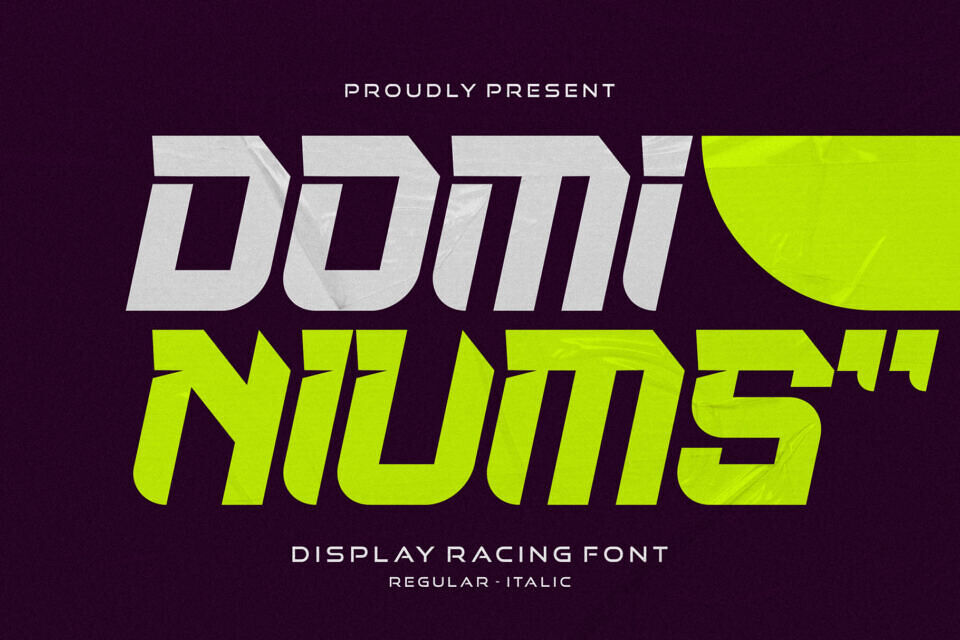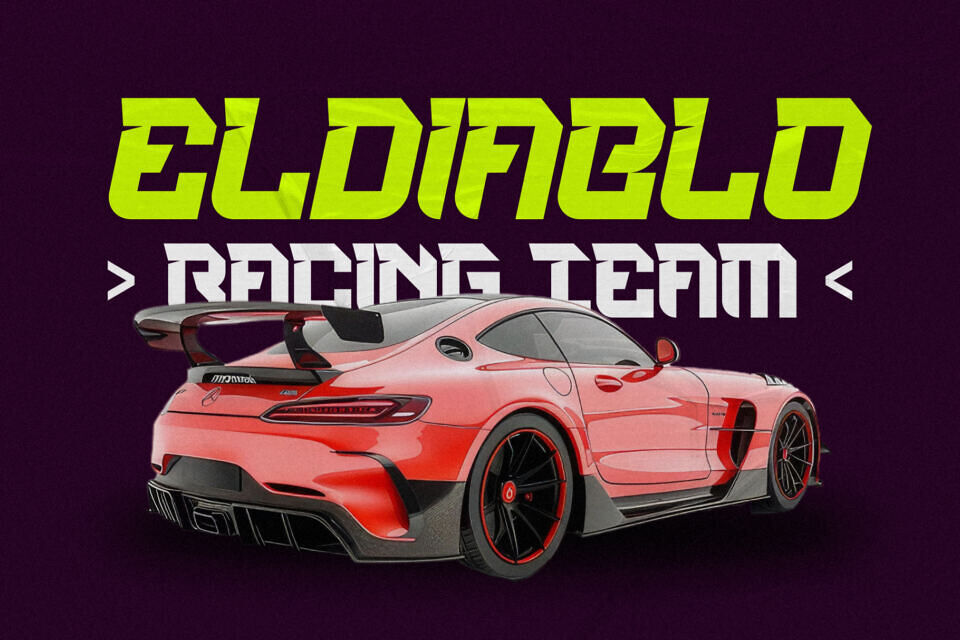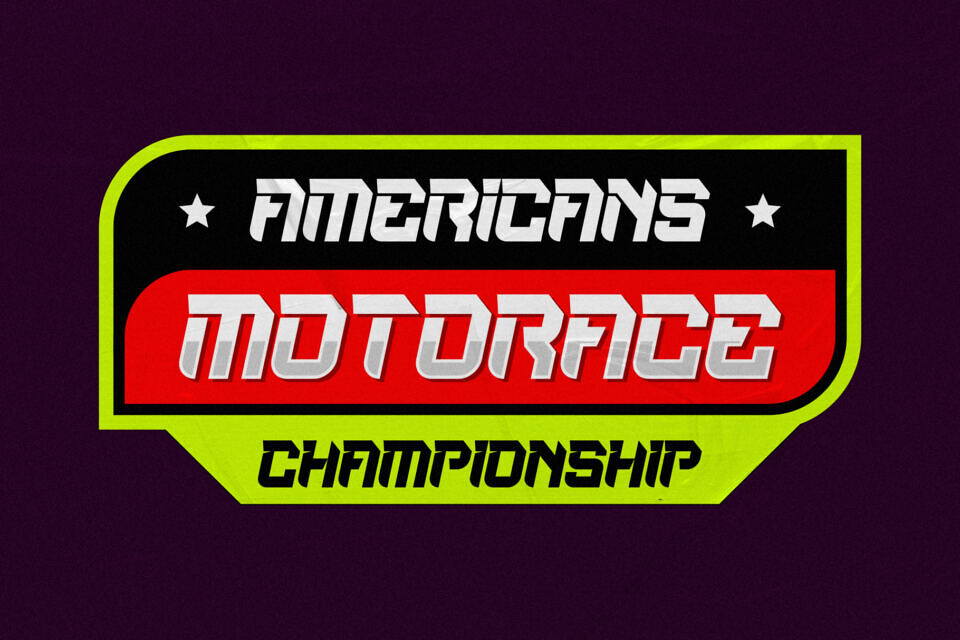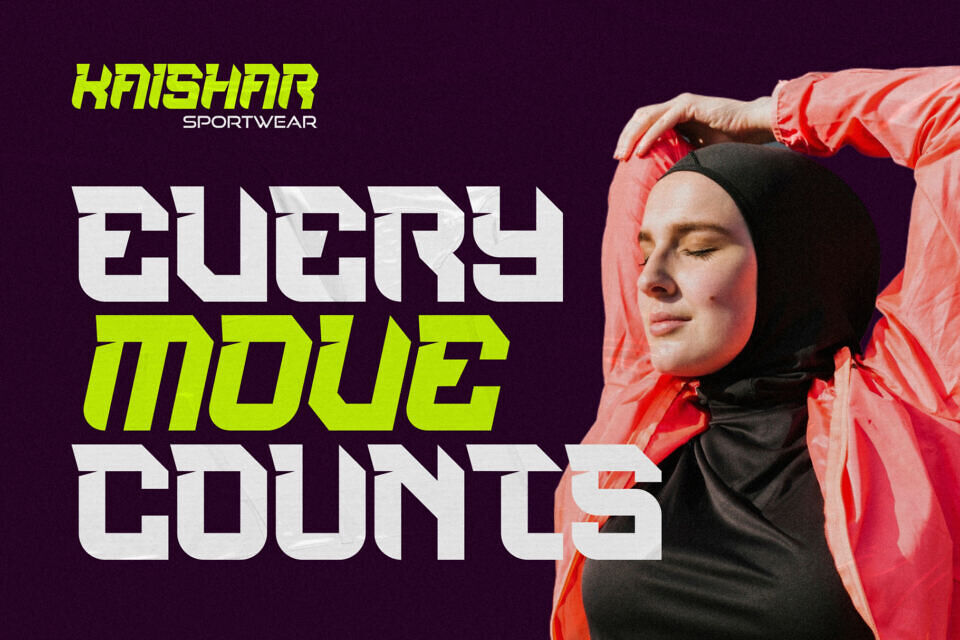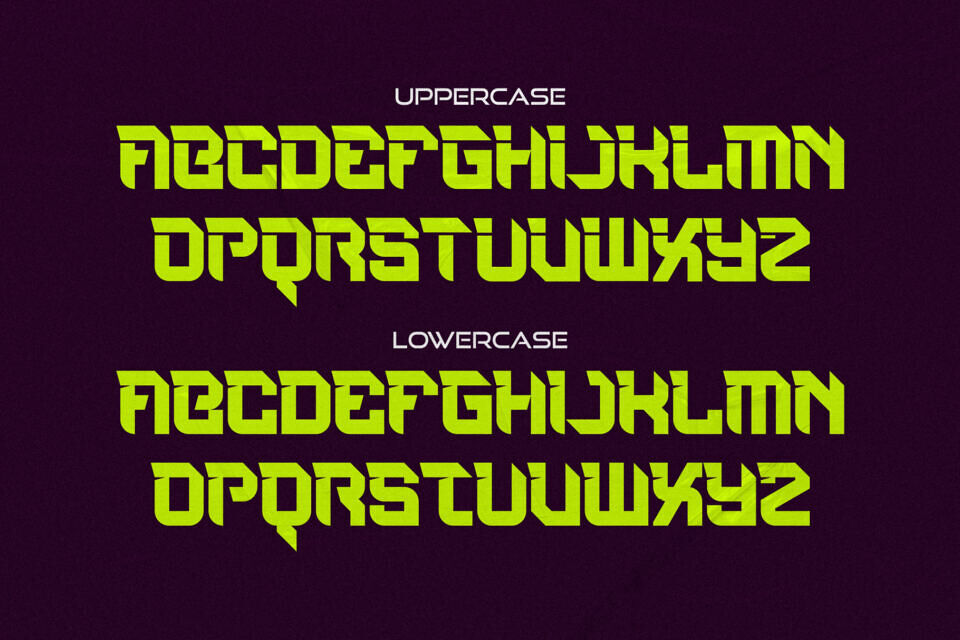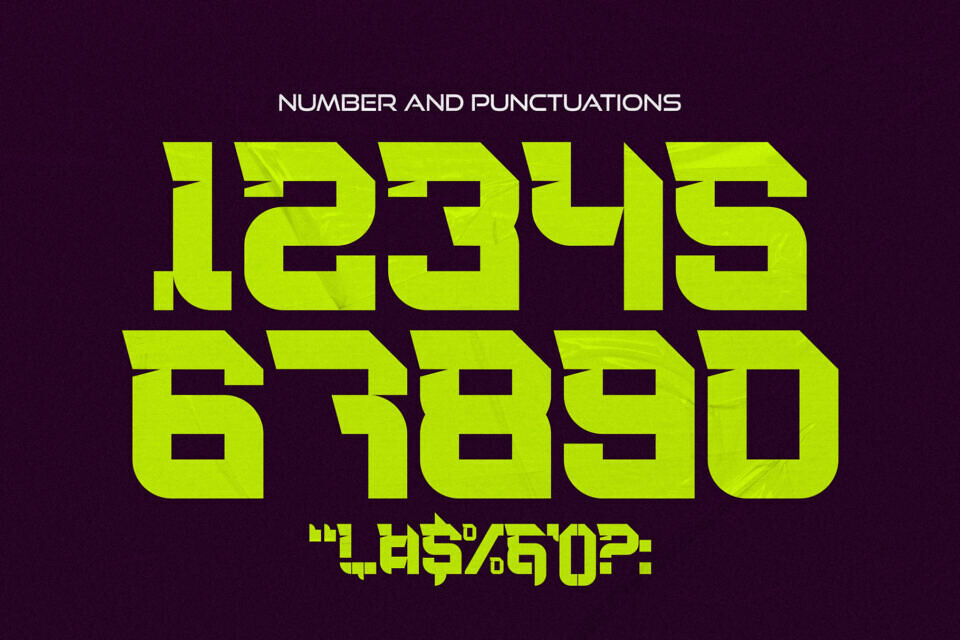
Dominiums Font
Dominiums – Display Racing Font was built to capture the essence of speed and modern energy. With sharp angles, extended proportions, and italic variation, this display racing font brings intensity to any project. Whether you’re working on sports branding, esports visuals, or high-energy posters, Dominiums ensures your message is delivered with confidence and motion.
This display racing font is designed for designers who want impact. Its bold strokes and fast-inspired forms guarantee your text won’t just be seen—it will be felt. From automotive branding to modern gaming overlays, Dominiums delivers a strong visual punch. Every stroke is infused with intensity, ensuring your projects radiate energy.